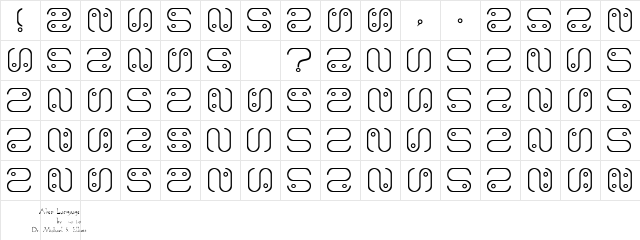
Alien Language Regular Font Preview
Alien Language Regular
Design Context for Alien Language Typeface
Alien Language is a composed and adaptable typeface that performs quietly and consistently across a wide range of design contexts.